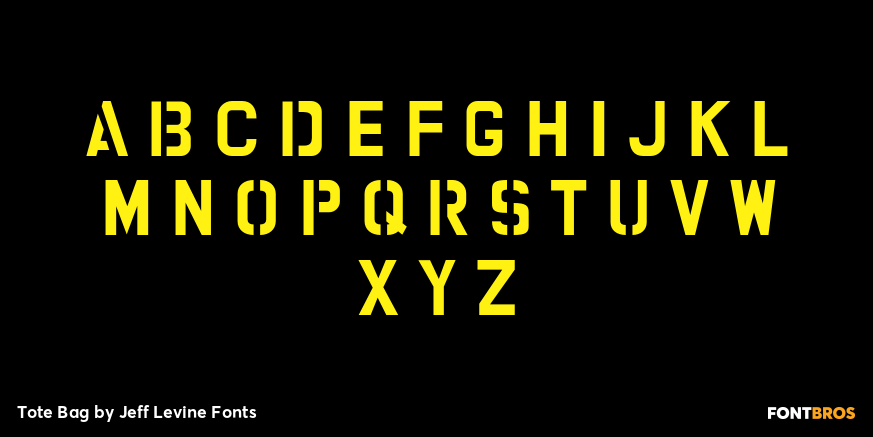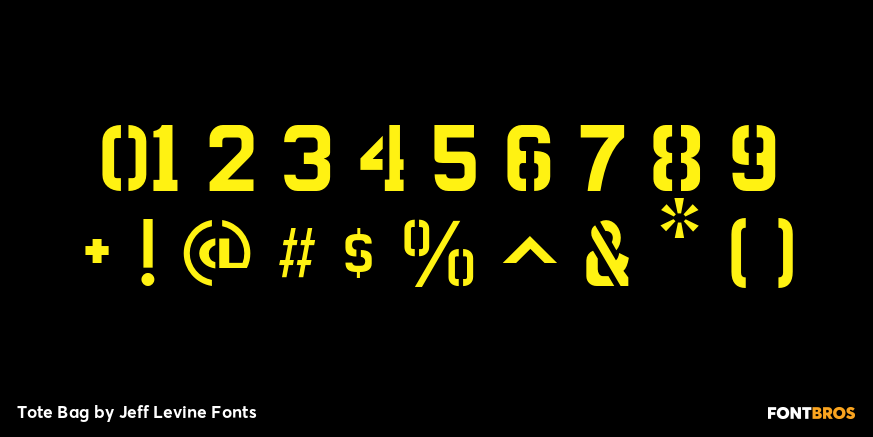
Tote Bag
Totebag JNL continues the stencil font series from Jeff Levine originally inspired by classic lettering stencils of the 1940s and 1950s.
This particular design is common amongst "painting stencils", the individual letters used for marking and identification. Some characters are solid shapes while others have the more traditional "breaks" in the letters.